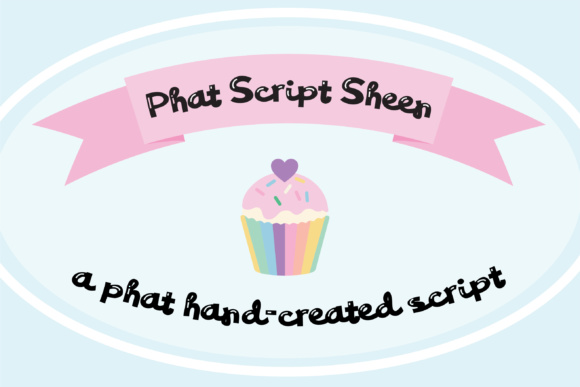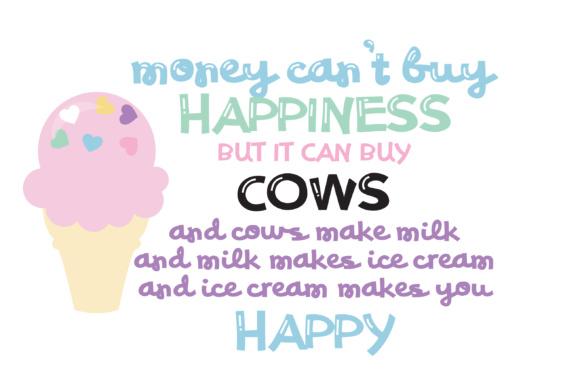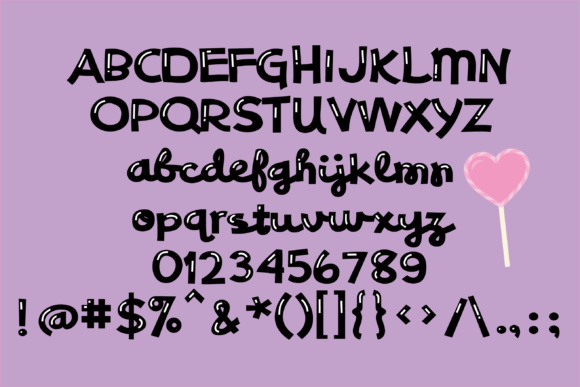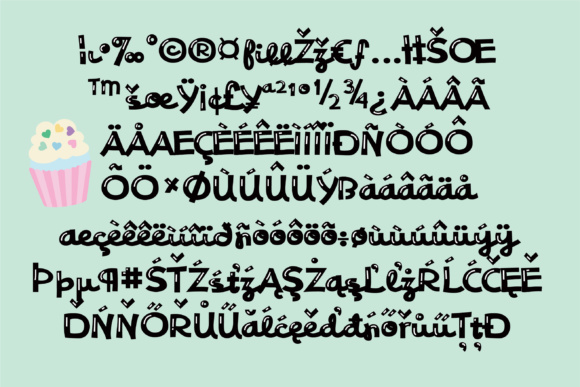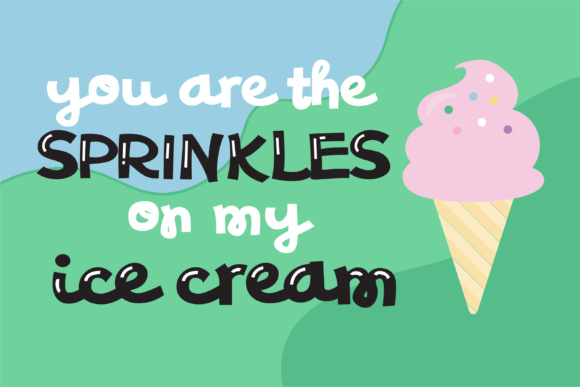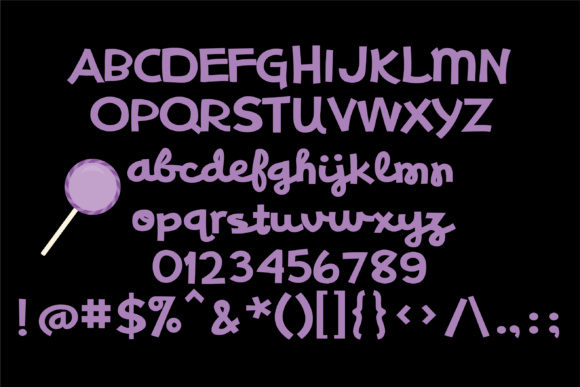
PN Phat Script Sheen Duo Font
About PN Phat Script Sheen Duo Font
This fun and whimsical cursive has thick lettering that is great for crafting and includes 2 versions. Phat Script Sheen has shiny marks throughout and can be used with Phat Script (regular) to create a duo-color font.